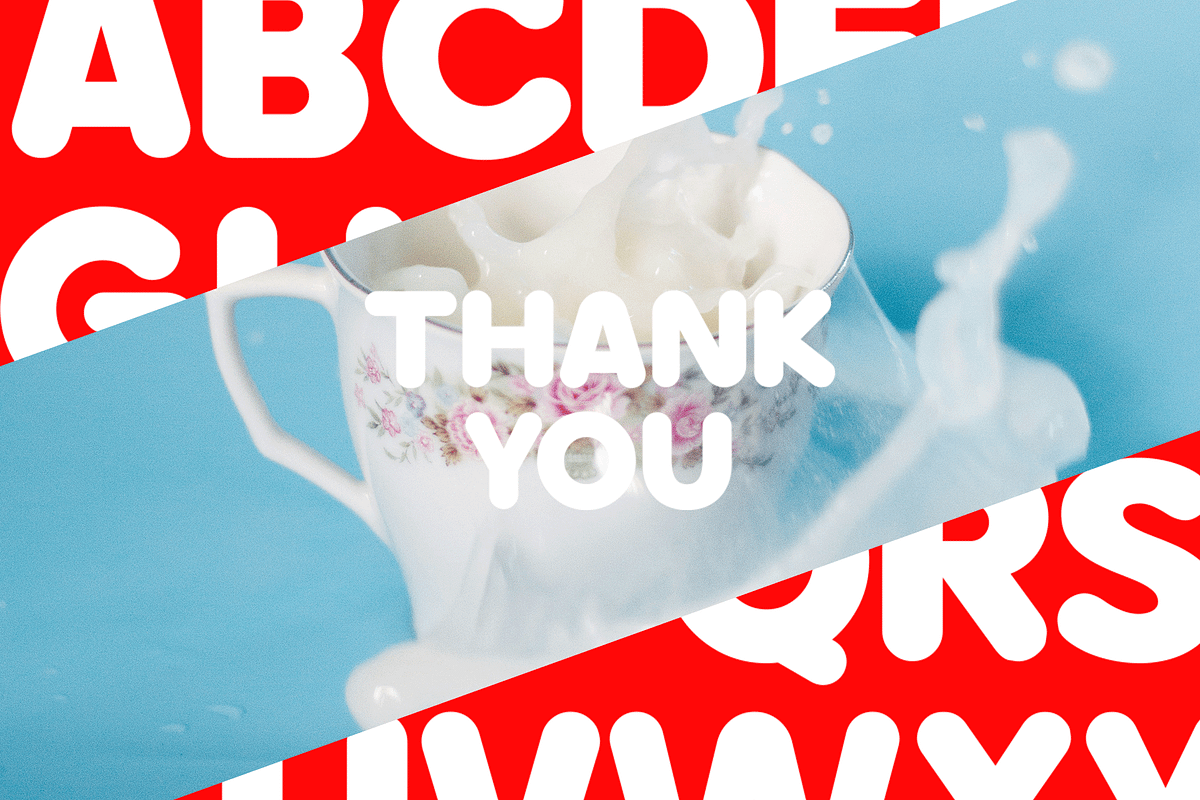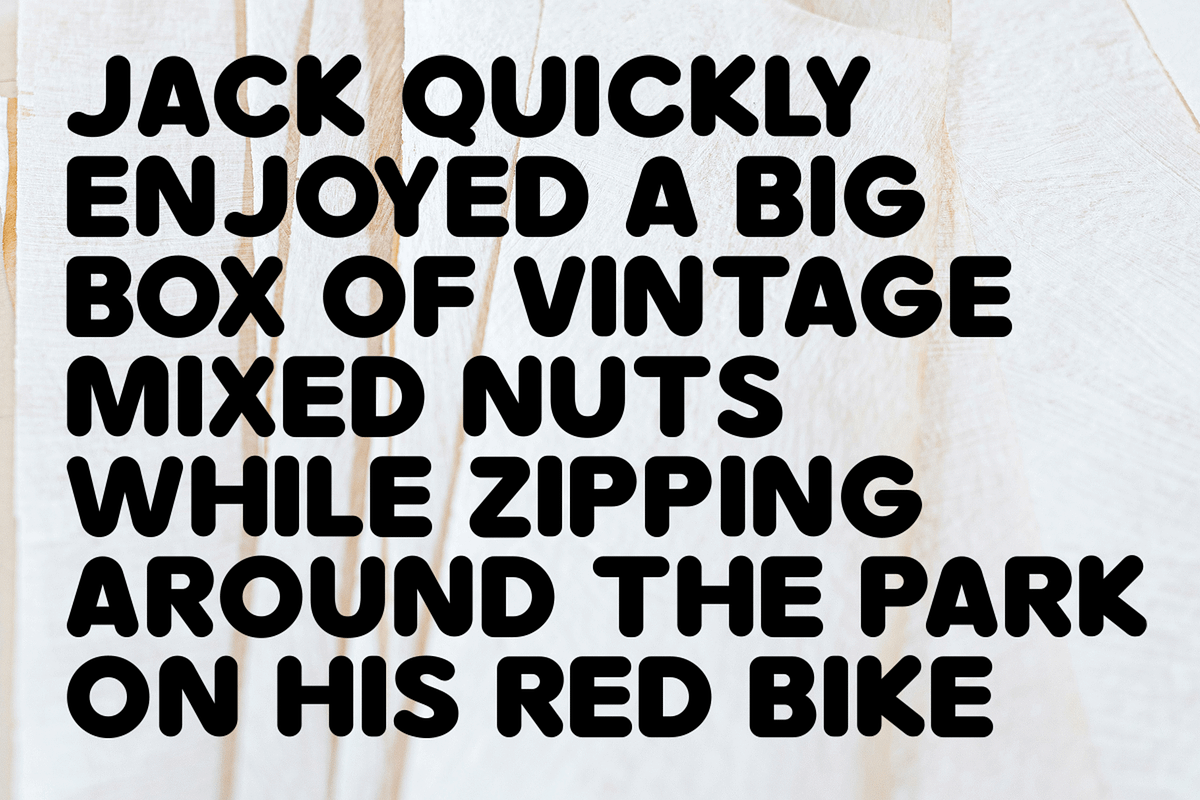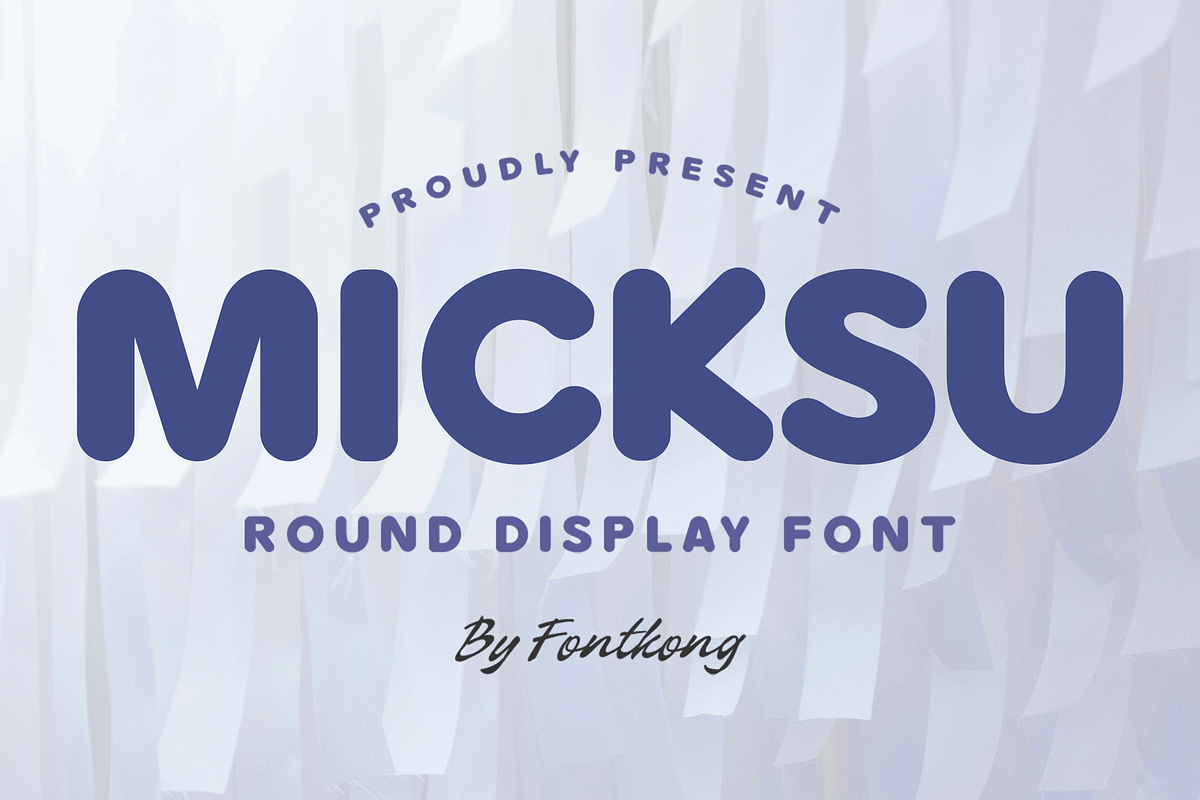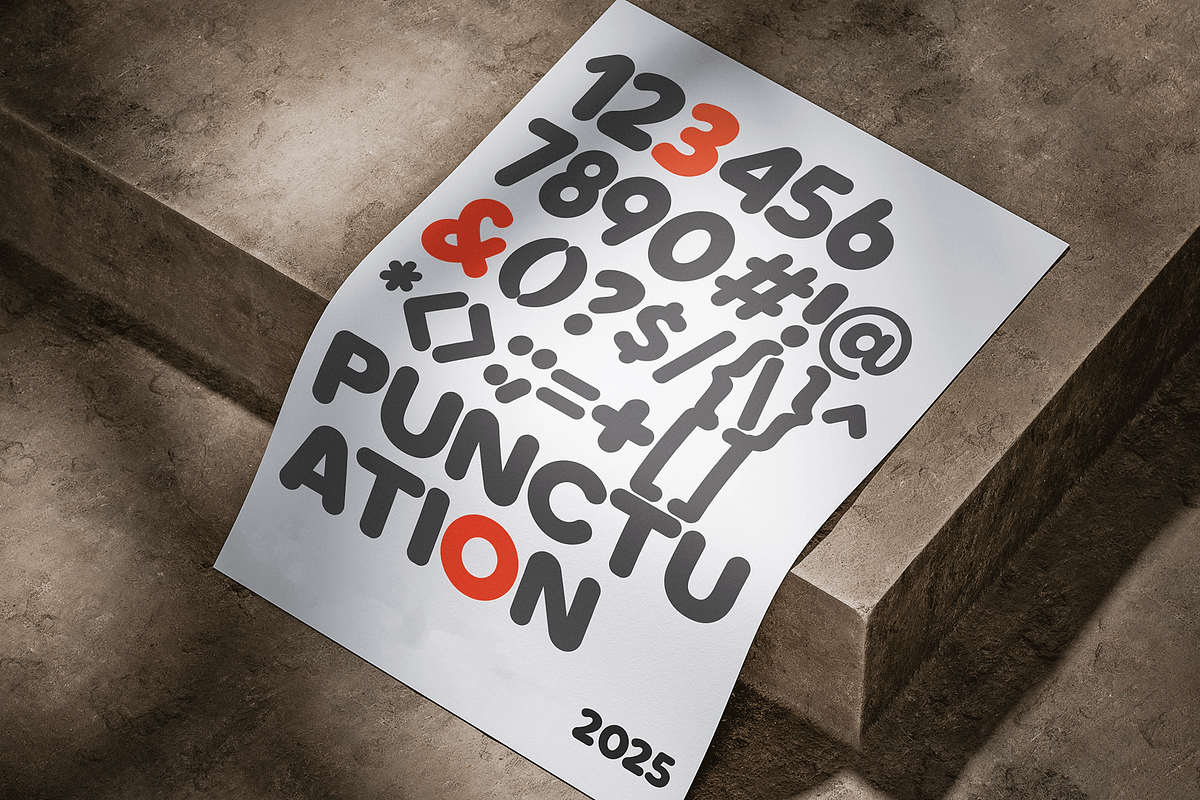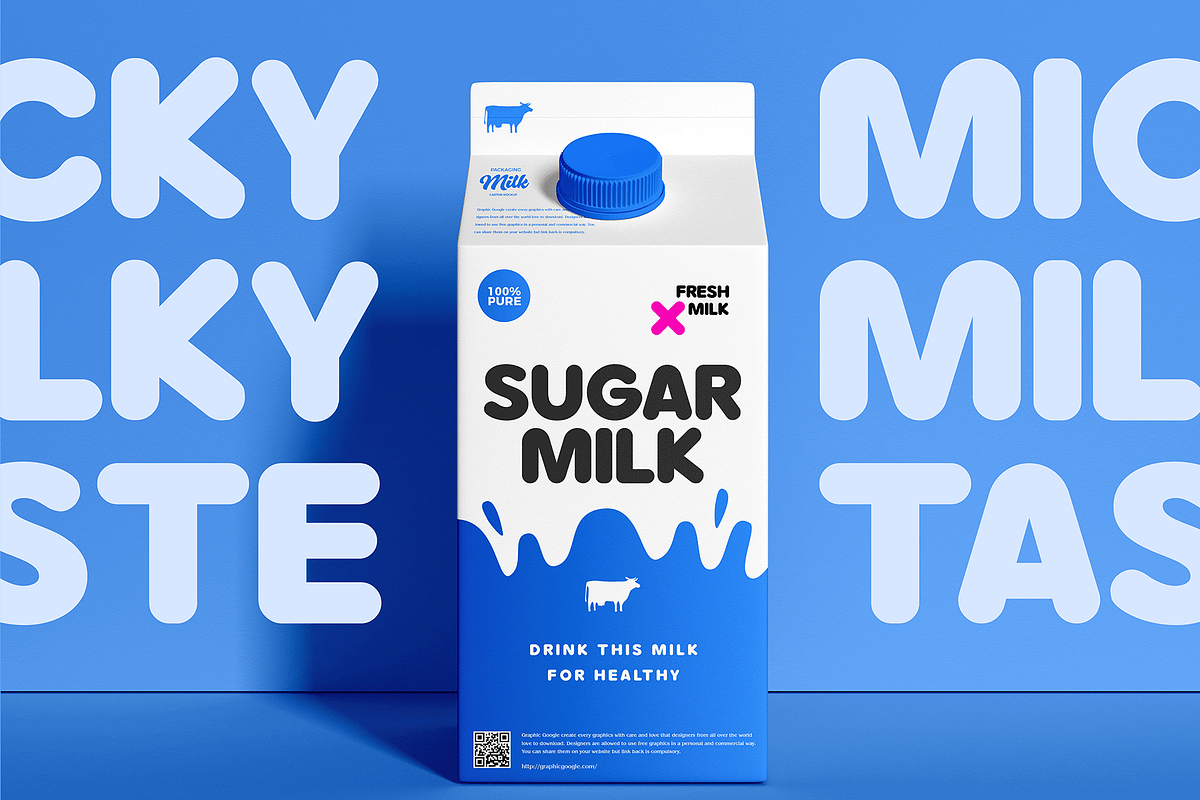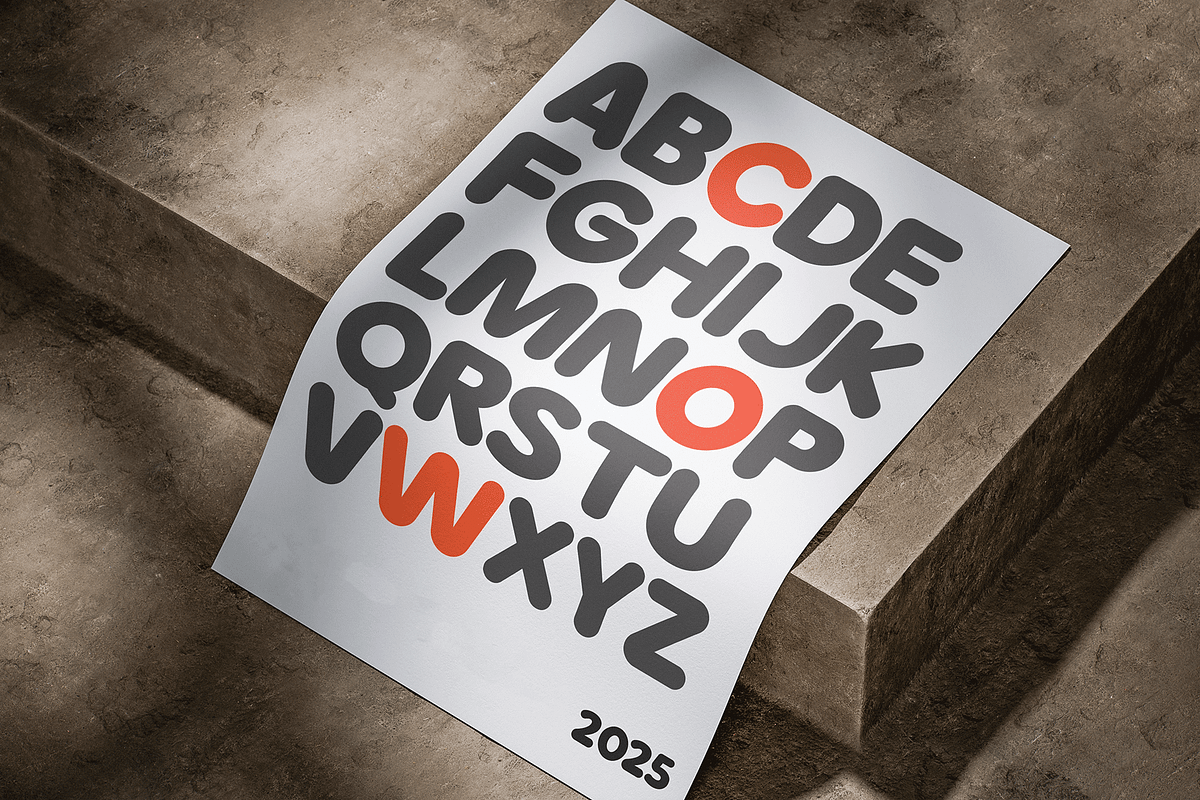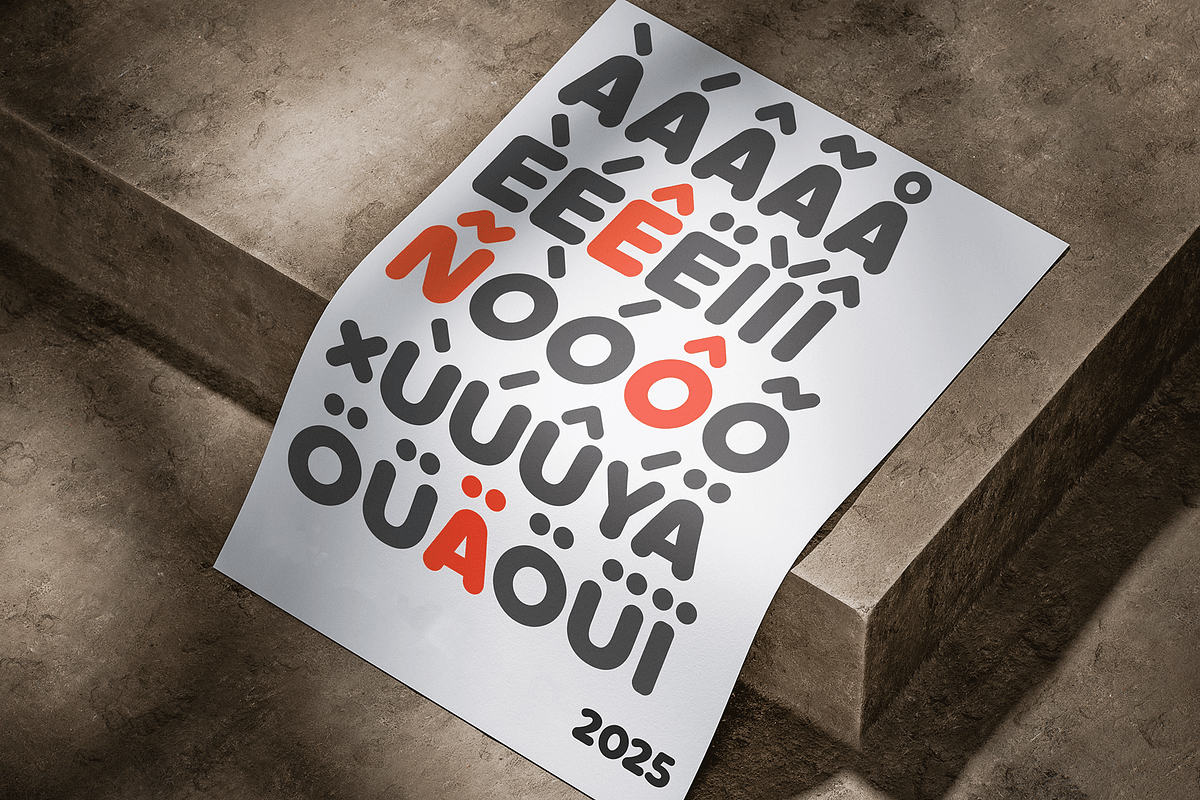
Micksu - Round Display Font
Introducing Micksu, a round display font that combines boldness with softness, creating a unique and inviting look for your designs. With its rounded edges and friendly, contemporary vibe, Micksu is the perfect choice for projects that need to make a fun yet impactful statement.
Whether you're working on logos, posters, headlines, or branding materials, Micksu delivers a strong visual presence with its clean, geometric shapes and smooth curves. This font's playful yet professional appeal ensures it’s suited for a wide range of creative applications, from children’s products to modern corporate designs.
The versatile character set includes uppercase and lowercase letters, numerals, punctuation, and multilingual support, making Micksu ideal for both print and digital use. Its bold, round design ensures your message stands out with clarity and style.
Micksu is the perfect round display font for adding a touch of boldness and charm to your next project.